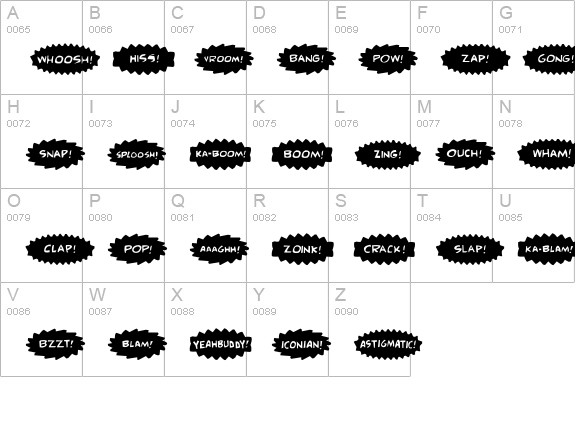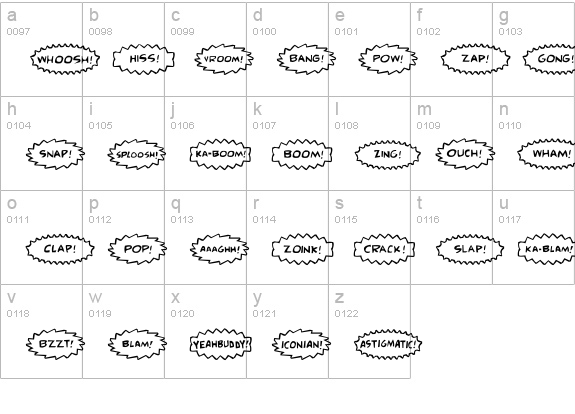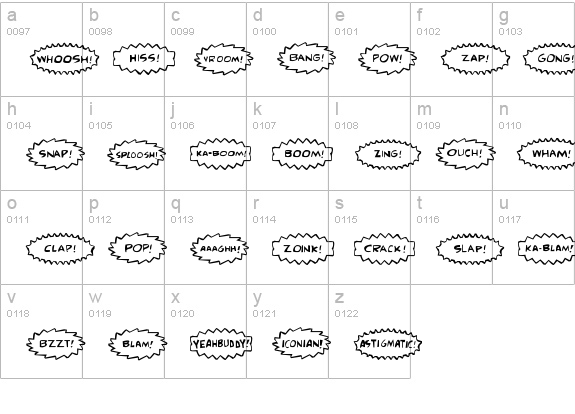
Comic FX Font Details
The Comic FX font is a playful and dynamic typeface that perfectly captures the essence of comic book sound effects and onomatopoeia. With its bold and energetic lettering, this font brings a sense of fun and excitement to any design project. What sets Comic FX font apart is its ability to convey action and movement through its expressive design. Whether you're creating a comic book, poster, or any other creative project, this font will add a touch of whimsy and visual appeal. Best of all, Comic FX font is completely free to download at FontsMarket.com. So go ahead and unleash your creativity with this eye-catching and versatile typeface!